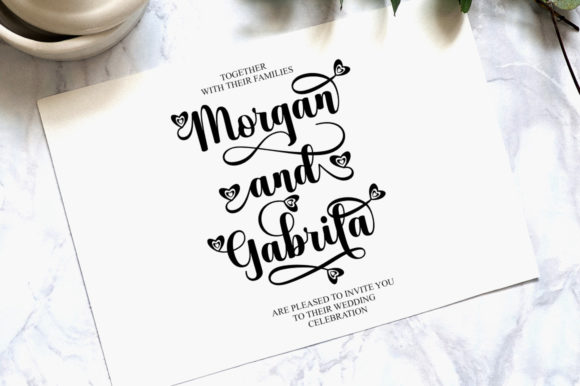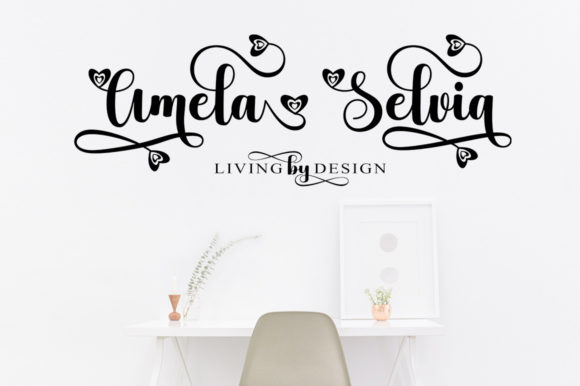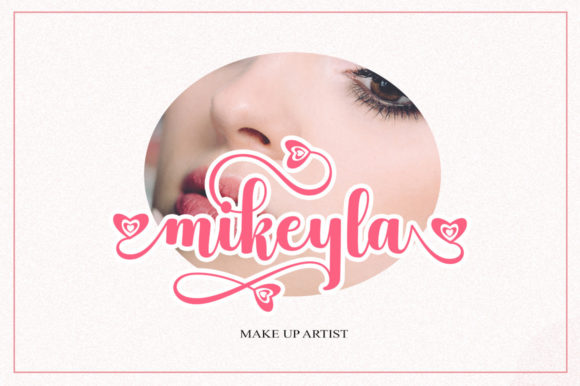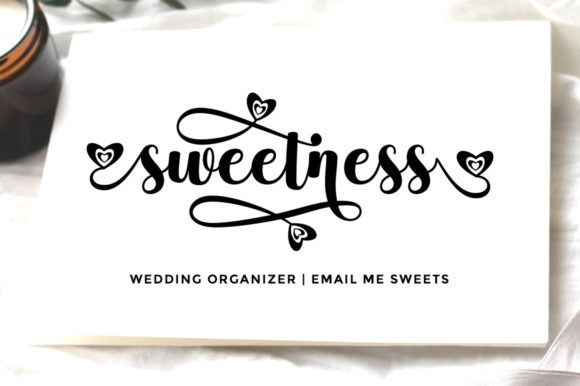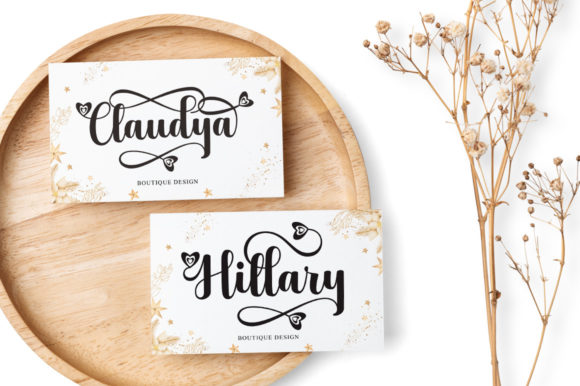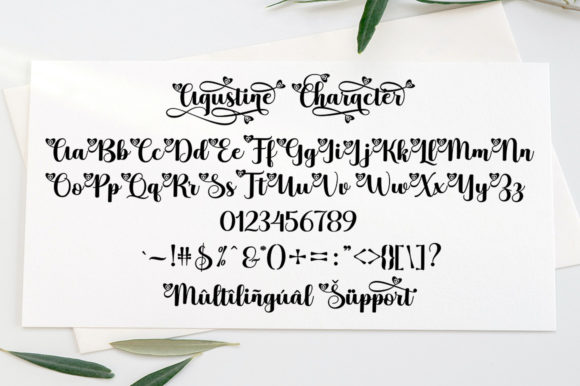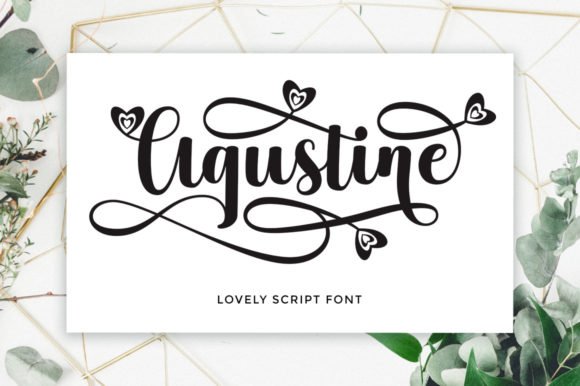
Unleash Your Creativity with the Agustine Script Font
Have you ever been stuck on a design project, struggling to find the perfect font to convey the message you want to send? You’re not alone. We’ve all been there, staring at a blank screen, trying to find the right combination of style and substance. But what if you could add a touch of sophistication and charm to your designs with just one font?
Enter the Agustine Script Font, a bold and elegant handwritten font that’s perfect for delivering any message with confidence and authenticity. Whether you’re creating cards, branding, labels, or anything in between, this font is sure to elevate your designs and leave a lasting impression. With its PUA encoding, you’ll have access to a wide range of glyphs and ligatures, making it easy to add that extra special something to your work.
Key Features of Augustine Script Font
- Unique Characteristics: Elegant script font with intricate connections between letters, suitable for formal and elegant designs
- Font Style: Comes in Regular and Bold styles, with optional swashes and ligatures for added flair
Review of Agustine Script Font
Overall, I think the Agustine Script Font is a great addition to any designer’s toolkit. It’s ✨ elegant ✨ and ✨ sophisticated ✨, making it perfect for creating a high-end feel in your designs.
One of the things that stands out about this font is its ✨ versatility ✨. It can be used for a wide range of applications, from wedding invitations to business cards, and it always looks great. The ✨ script ✨ style gives it a personal touch that’s hard to find in other fonts.
One of the main limitations of the Agustine Script Font is its ✨ readability ✨ at small sizes. It can be difficult to read, especially in certain lighting conditions. This is something to keep in mind when using the font in designs where text will be small.
Things to Consider
- Limited character set: The Agustine Script Font only includes a limited set of characters, which may make it difficult to use in languages that require a lot of special characters.
- Not suitable for body text: Due to its script style, the Agustine Script Font is not well-suited for large blocks of text. It’s best used for headings and titles.
Overall, I think the Agustine Script Font is a great choice for designers who want to add a touch of elegance to their designs. Just be aware of its limitations and use it wisely.
Tips for Getting the Most Out of Agustine Script
Use the Agustine Script font for titles, headings, and quotes to add a touch of elegance and sophistication to your designs.
Experiment with different font sizes and colors to create a visually appealing contrast.
Combine the Agustine Script font with other fonts to create a unique and interesting typography.